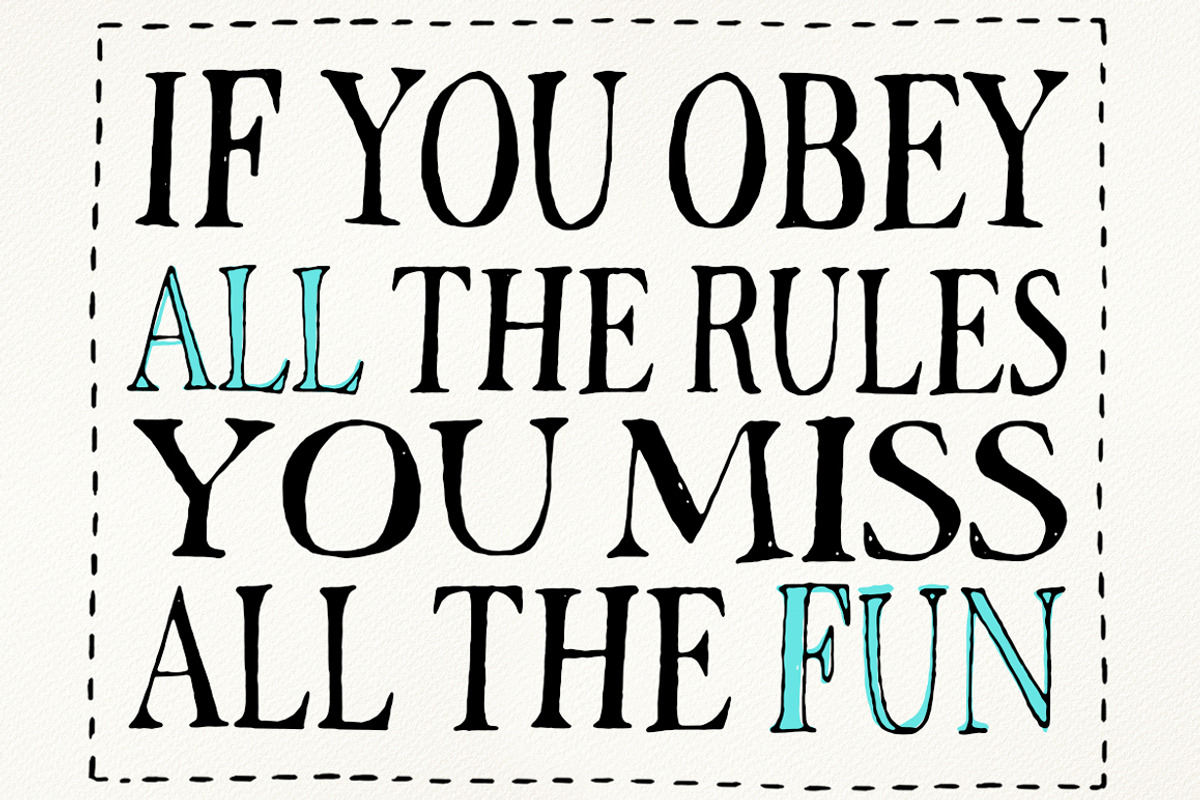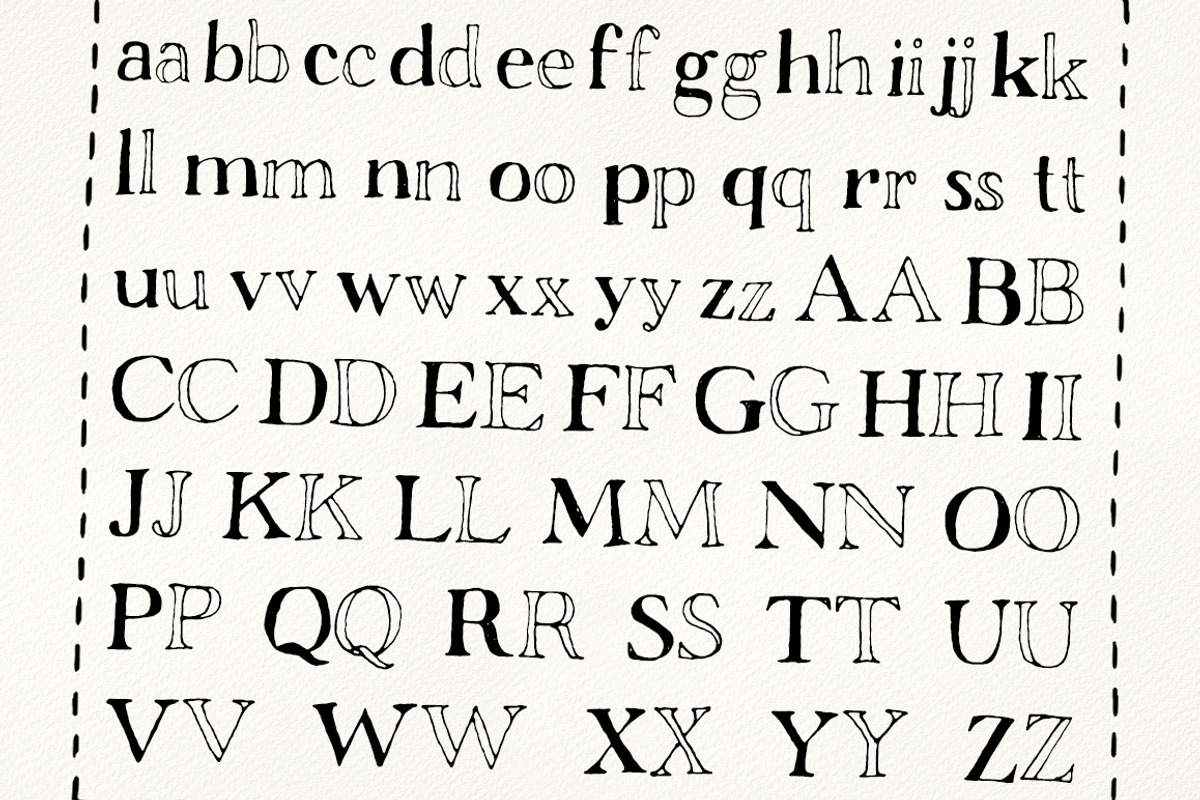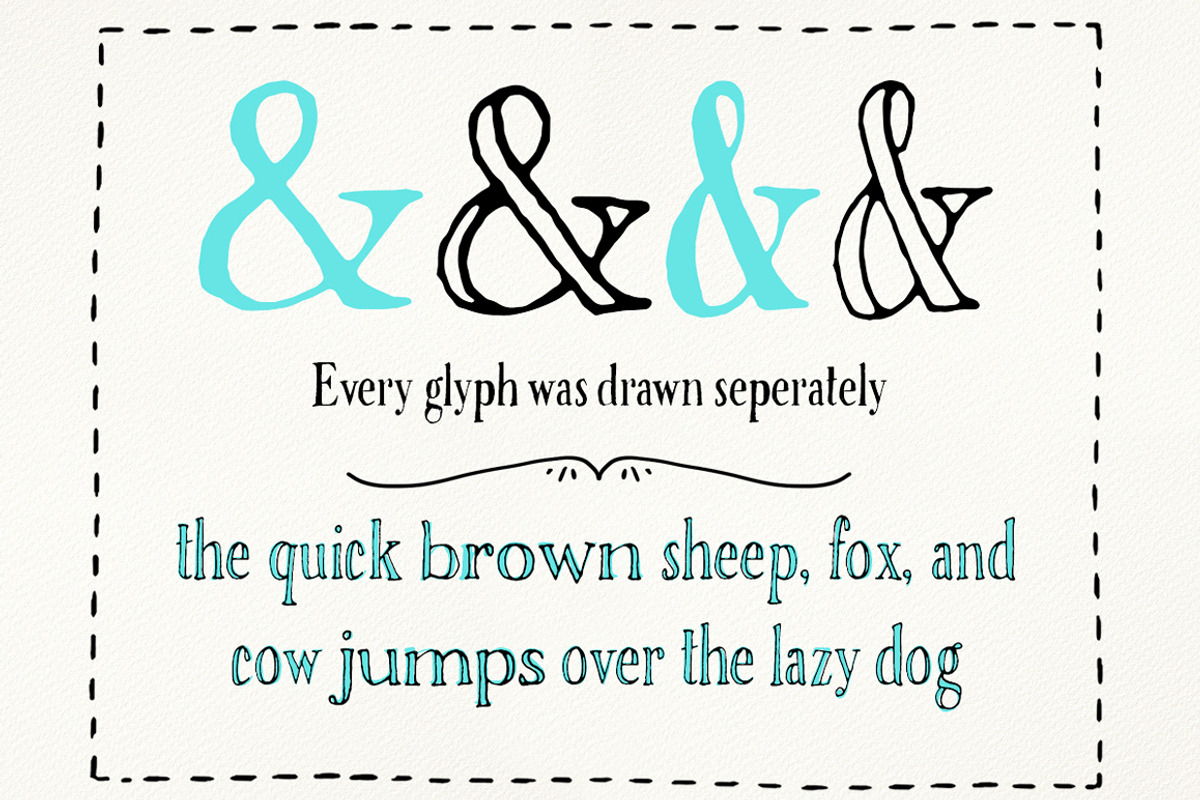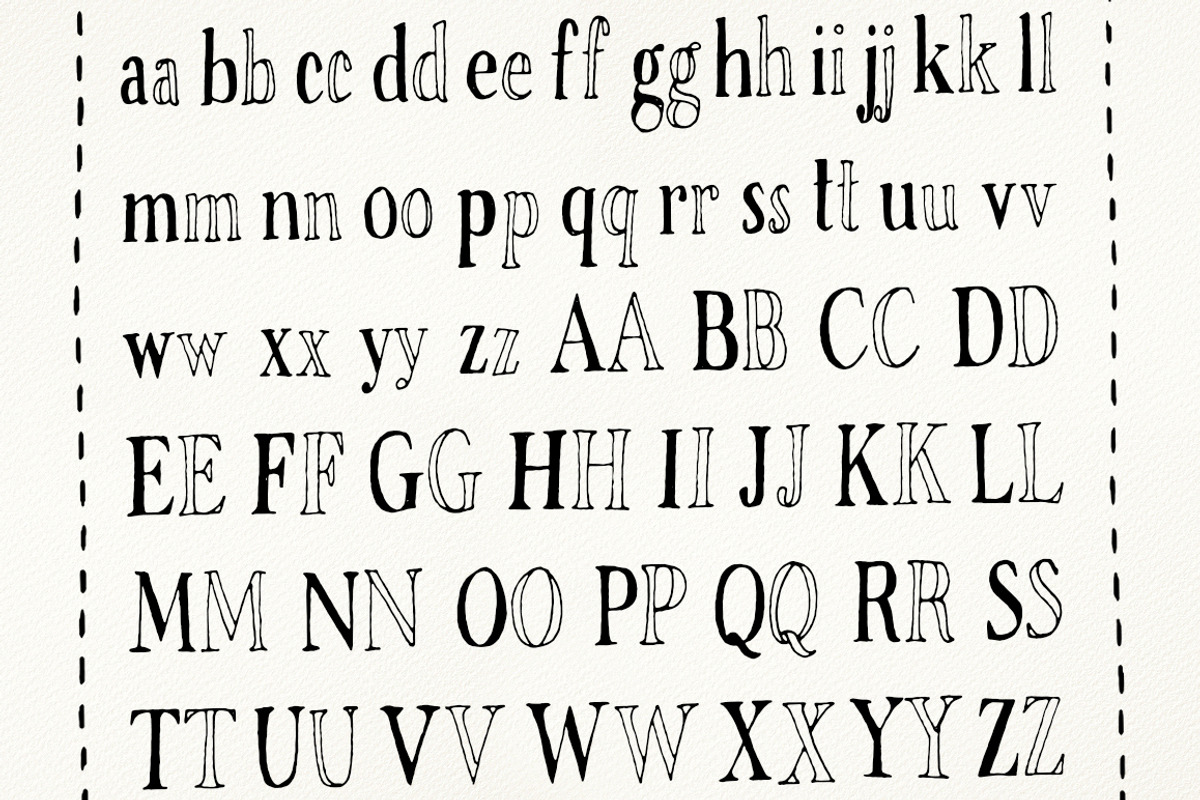
Rivina Pen Font Family
Rivina Pen Font Family by Tom Chalky is a font selected for branding, posters, packaging, typography.
- Rivina TC Pen Cn
- Rivina TC Pen Cn Outline
- Rivina TC Pen
- Rivina TC Pen Outline
Why Rivina Pen Font Family is worth a look
Rivina Pen Font Family by Tom Chalky fits naturally into Branding, posters, packaging, typography.